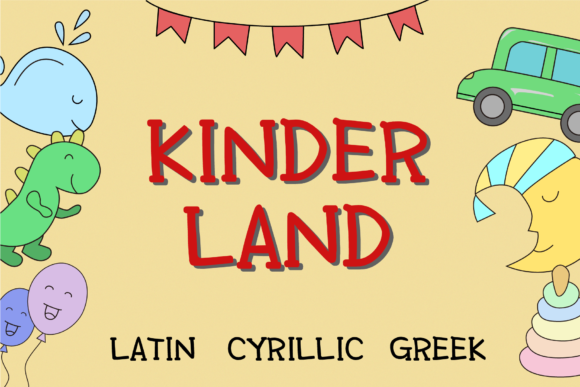
Journey into a whimsical world of creativity with Hu Kinderland Font, a charming serif font family designed to spark imagination and evoke childhood wonder. Masterfully crafted by heummdesign, this font exudes an aura of innocence and playfulness that will captivate your audience.
Picture the pages of a beloved storybook brought to life, the enchanting covers of children's books inviting young readers into magical realms, or the vibrant packaging of toys and games that ignite laughter and spark boundless imagination.
Dive into a sea of captivating characters, whimsical illustrations, and playful designs that come alive with Hu Kinderland Font. Its soft curves, delightful swashes, and elegant serifs dance together in harmony, creating a visual symphony that resonates with warmth and charm.
Unleash your creativity and embark on a delightful adventure with Hu Kinderland Font. Let your imagination soar as you create captivating visuals that connect with your audience on a heartfelt level.